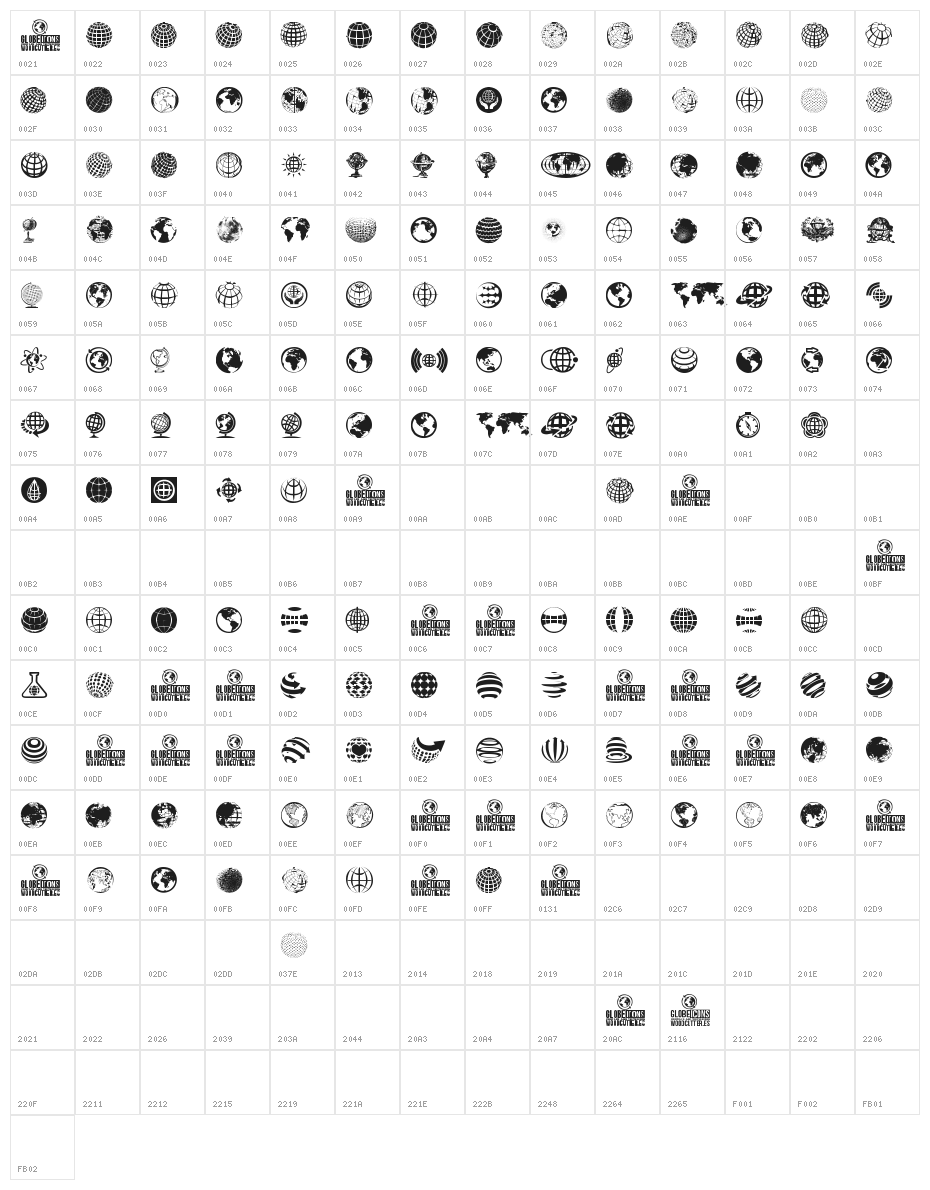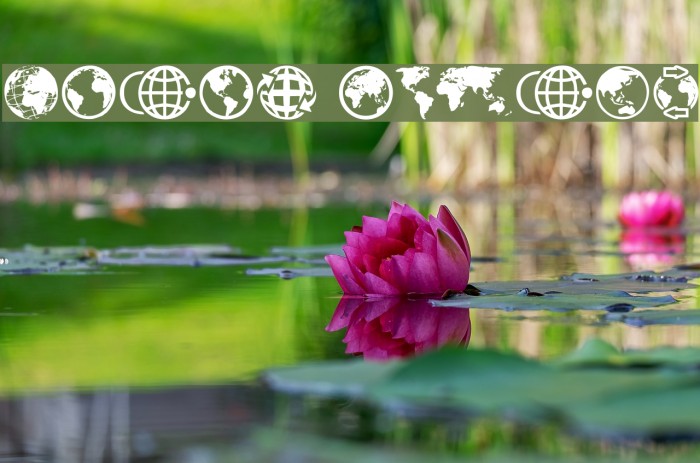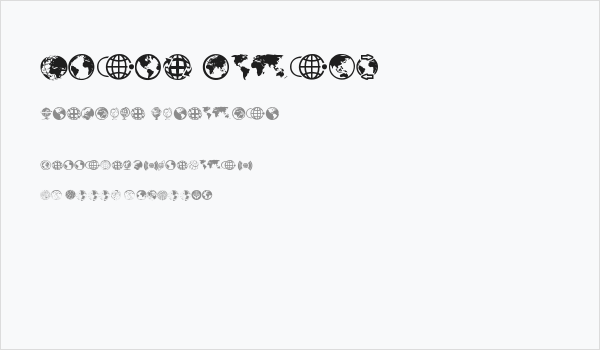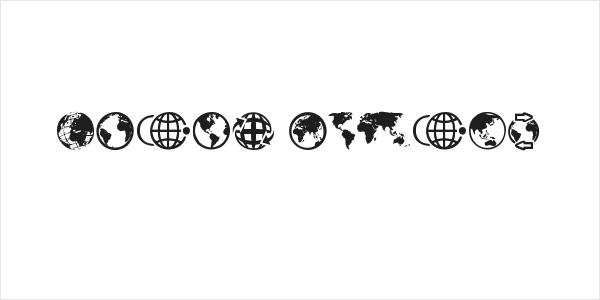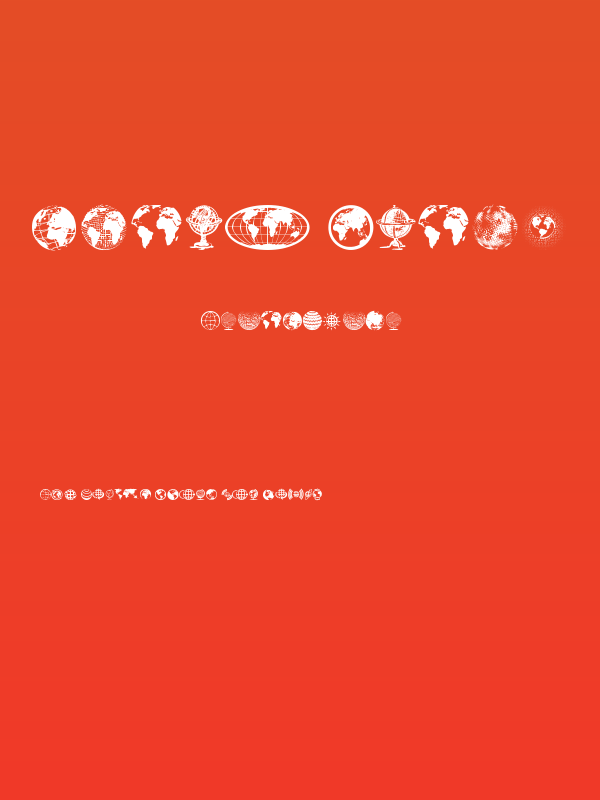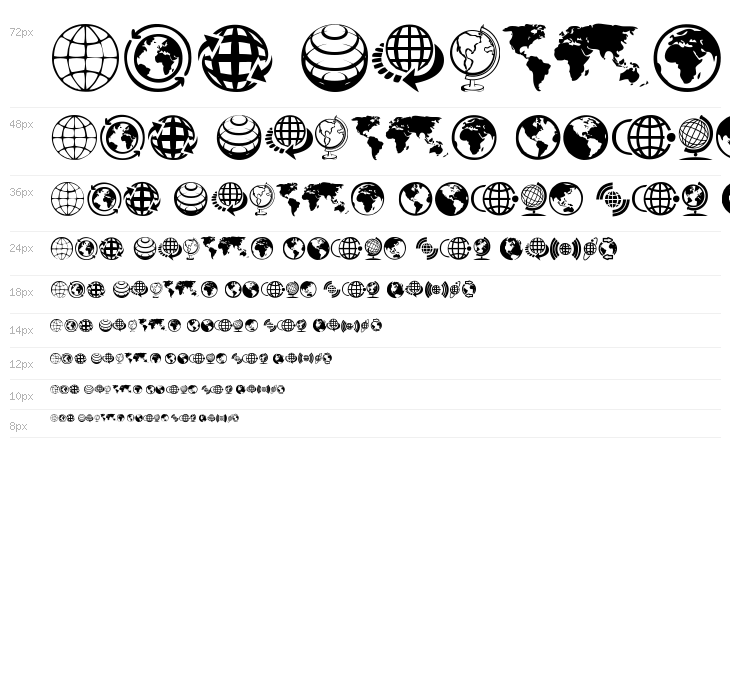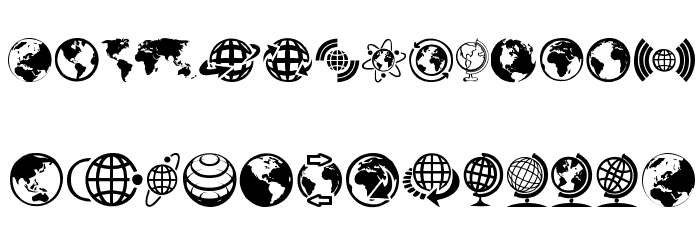
Globe Icons Font
Globe Icons Description
A collection of black and white globe and world map icons, featuring a variety of illustrative and geometric styles, including globes on stands, flat map projections, wireframe spheres, and stylized earth representations.
| Overall Style | Decorative, Modern, Informative |
| Use Case | Icons, Logos, Infographics, Educational content |
| Proposed Projects | Infographics, educational materials, travel brochures, environmental campaigns, website icons, branding for global businesses. |